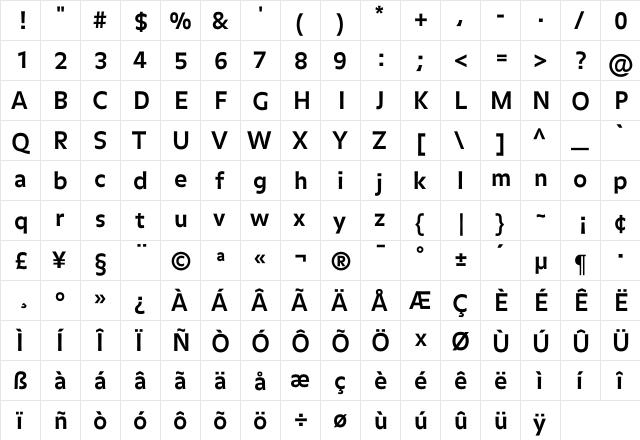
Balance Bold
Design Context for Balance Typeface
Balance takes a measured approach to typography — its balanced proportions and neutral character make it a reliable workhorse for both digital and print work. The heavy weight commands attention and anchors typographic hierarchies.
Pro Tip: Use Balance in both headline and body roles to test its range before committing to a single application.